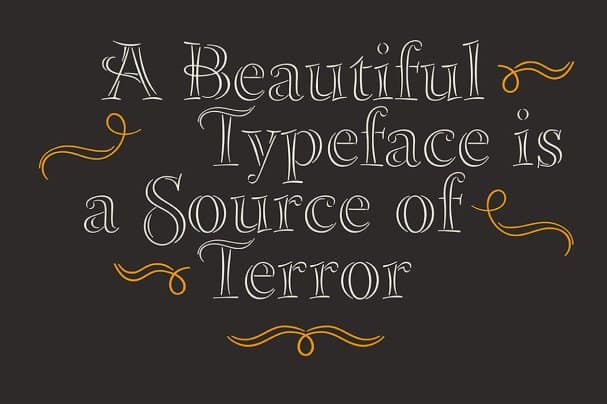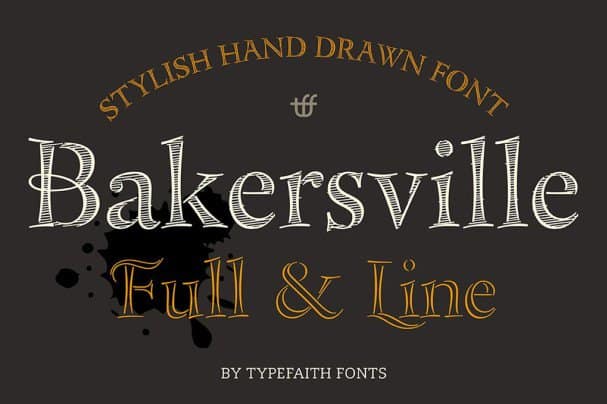
Bakersville Font
Bakersville Font is widely famous for its bold and italic function. This is also known for its commercial use and similar to old face font. As a give up save you give up stop prevent quit end result, it makes it possible for being one of the critical multi-treasured this is similar to soviet league options and pinnacle-notch to help your layout and seem knowledgeable. It is bendy this is an excellent way to paintings in frame replica as proper as titles, and there can be an understated beauty to it that we pretty like.
So, it’s considered pinnacle-notch for pretty-present day-day-day designs. Bakersville Font Free You need to select out out the shape of font that’s properly advanced, and every and all and sundry is recognizable in small sizes, ambitious, or italic. And all of these patterns have possessed OpenType record codecs. This font is the extraordinary one which has lines on the pinnacle of actually truly absolutely everyone.